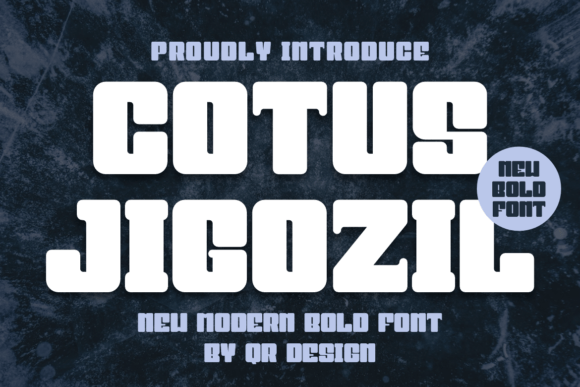
Introducing Cotus Jigozil Font, the bold and authentic display font that will take your branding project to new heights! Created by qrdesignstd, this font is the perfect choice for those looking to create a vintage logo that truly stands out.
With its sleek sans serif style, Cotus Jigozil Font adds a touch of elegance and sophistication to any design. Whether you're working on a logo, t-shirt printing, or even sports-related projects, this font is sure to leave a lasting impression.
What sets Cotus Jigozil Font apart from the rest is its versatility. It seamlessly blends into a wide range of contexts, making it an ideal choice for various industries and themes. Its bold and captivating appearance instantly grabs attention, ensuring that your message gets across loud and clear.
This font is not just visually appealing, but it also carries an emotional impact. Its vintage-inspired aesthetic evokes a sense of nostalgia and authenticity, instantly transporting your audience to a different era. With Cotus Jigozil Font, you can effortlessly capture the essence of the past while maintaining a modern and stylish look.
Let your creativity soar with Cotus Jigozil Font. Its unique characteristics allow you to experiment with different design elements, creating truly captivating and eye-catching visuals. From retro-themed projects to contemporary designs with a vintage twist, this font has got you covered.
Unlock the potential of your branding projects with Cotus Jigozil Font. Whether you're an aspiring entrepreneur or a seasoned designer, this font will elevate your creations to a whole new level. Stand out from the competition and leave a lasting impression with its captivating appeal.